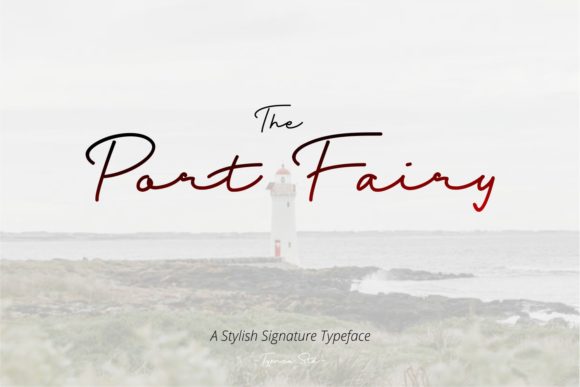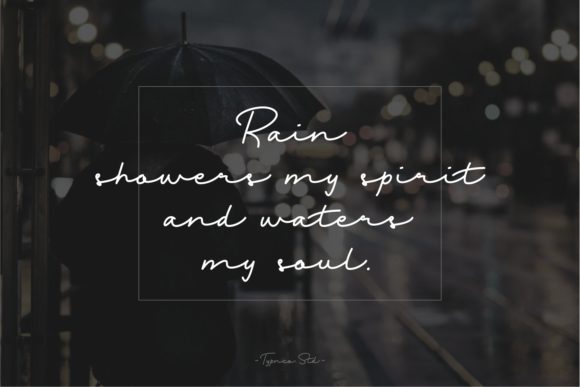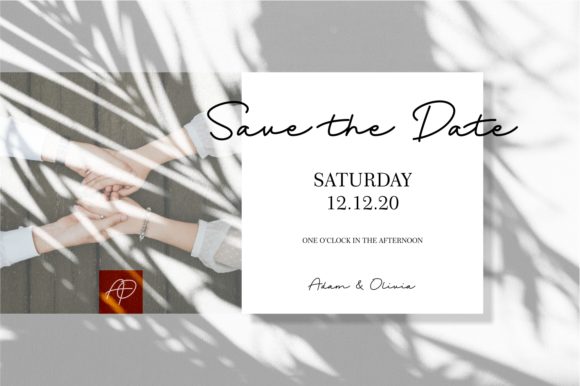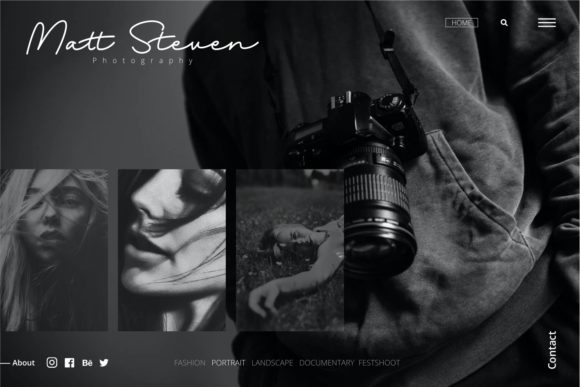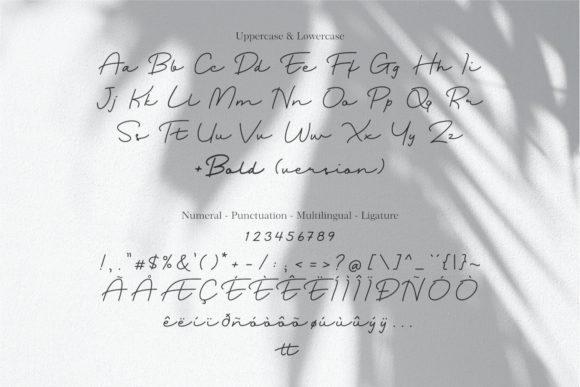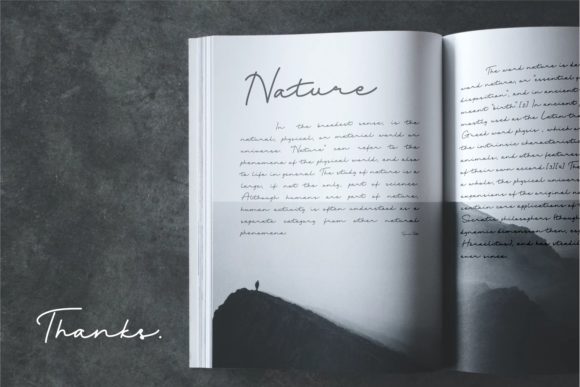
About Port Fairy Font
Port Fairy is a stylish script font that looks elegant, natural, and stylish. This modern & fresh monoline signature typeface is perfect for personal branding, logo, wedding designs, social media posts, advertisements, product designs, labels, photography, watermark, stationery, and any projects that need handwriting taste.